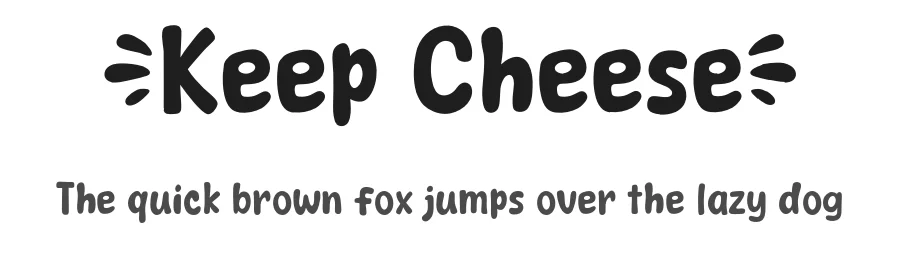
About Aku Ceria Font
Aku Ceria is a handwritten script font designed by Khurasan that brings casual, approachable character to any creative project. With 116 glyphs supporting more than 107 languages built on Latin foundations, this Regular-weight typeface delivers practical usability across international applications while maintaining its genuinely human personality and warmth throughout each letter.
The flowing, naturally expressive letterforms make Aku Ceria ideal for projects where friendliness and informal authenticity matter most. Consider it for children's book covers and activity pages, social media graphics that benefit from a personal human touch, greeting card suites for celebrations and special occasions, and packaging labels on artisanal products like handmade jams or craft goods. The handwritten quality also works beautifully in printed materials designed to feel intimate and genuine, resonating when you want viewers to sense real connection rather than corporate polish.
Licensed as free for both personal and commercial use, Aku Ceria removes barriers for creators seeking to experiment without licensing concerns. When using Aku Ceria in longer compositions, pair it with a clean geometric sans-serif for headlines or body copy to anchor the design: the script's casual energy balances particularly well against structured typefaces, creating work that remains professional while retaining that inviting, accessible warmth throughout.
Aku Ceria Font is a script font that shines as a display or heading face. Pair it with a clean sans-serif or serif font for body text β the contrast creates a clear hierarchy while the two styles stay balanced and easy to read.